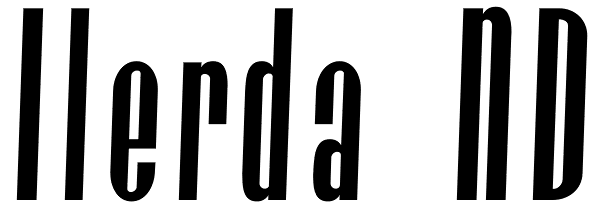
Ilerda ND
Ilerda ND is part of Neufville Digital’s GRAFÍA LATINA Collection. This typeface is also known as '"Champs Élysées" in France, where it was published by FTF. Ilerda is the first typeface of Enric Crous-Vidal designed within his 'Grafía Latina...